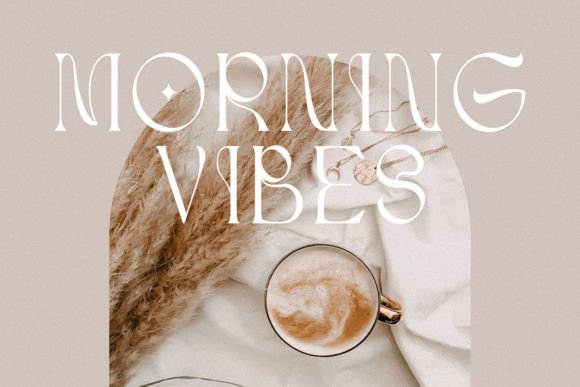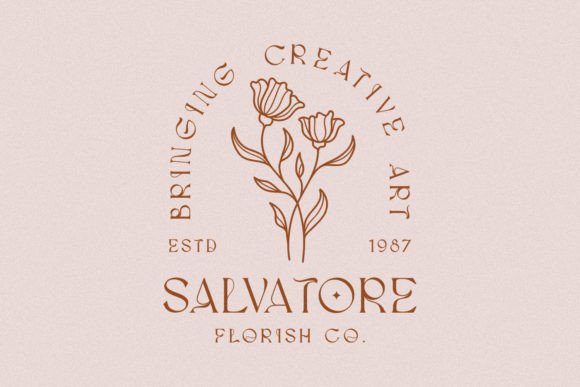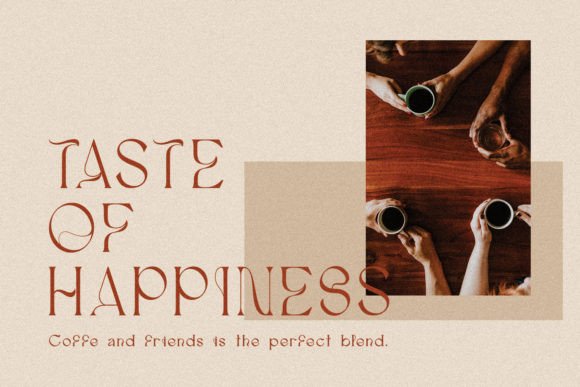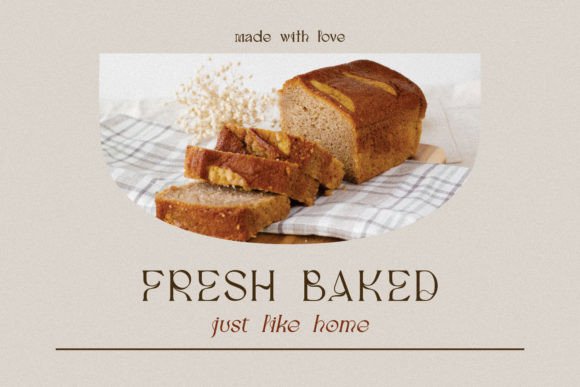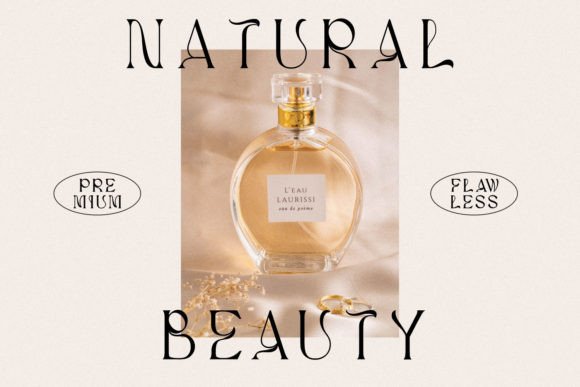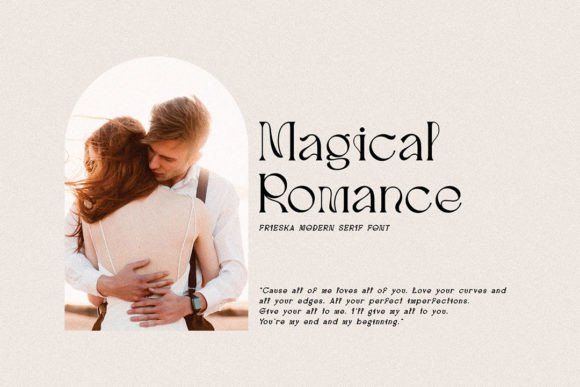
Frieska Font: Elevate Your Designs with a Touch of Luxury
In the world of typography, a font can make or break a design. For those seeking to add a dash of sophistication and elegance to their projects, Frieska Font is an excellent choice. This decorative serif typeface boasts a unique style and modern look, perfect for luxury projects that demand attention to detail.
What is Frieska Font?
Frieska Font is a carefully crafted typeface designed to bring a touch of luxury to various design projects. Its distinctive serif style sets it apart from more traditional fonts, making it an excellent choice for those seeking to create a lasting impression.
Key Features of Frieska Font
• Unique Style: Frieska Font’s distinctive serif style gives it a modern and sophisticated look.
• Decorative Elements: The font features intricate decorative elements that add an extra layer of elegance.
• Versatility: Frieska Font is suitable for a wide range of design projects, from wedding invitations to product packaging.
Ideal Uses for Frieska Font
Frieska Font’s versatility makes it an excellent choice for various luxury projects, including:
• Wedding Invitations: Add a touch of elegance to your wedding invitations and save the date cards.
• Luxury Logos: Create a lasting impression with a custom logo that exudes sophistication.
• Printed Quotes: Make your quotes stand out with a font that demands attention.
• Greetings Cards: Add a personal touch to your greetings cards with Frieska Font’s elegant style.
• Social Media Headers: Elevate your social media presence with a custom header that showcases your brand’s personality.
• Product Packaging: Make your product stand out on store shelves with Frieska Font’s luxurious look.
Why Choose Frieska Font?
With so many fonts available, why choose Frieska Font? Here are just a few reasons:
• Uniqueness: Frieska Font’s distinctive style ensures your design stands out from the crowd.
• Elegance: The font’s sophisticated look makes it perfect for luxury projects.
• Versatility: Frieska Font can be used for a wide range of design projects.
Tips for Using Frieska Font
To get the most out of Frieska Font, follow these tips:
• Use it sparingly: Frieska Font’s elegance can be overwhelming if overused. Use it sparingly to create a lasting impression.
• Pair it with neutral fonts: Pair Frieska Font with neutral fonts to create a balanced look.
• Experiment with sizes: Play with different font sizes to create visual interest.
Frieska Font is an excellent choice for designers and crafters seeking to add a touch of luxury to their projects. Its unique style, decorative elements, and versatility make it perfect for a wide range of design projects. With Frieska Font, you can elevate your designs and create a lasting impression.